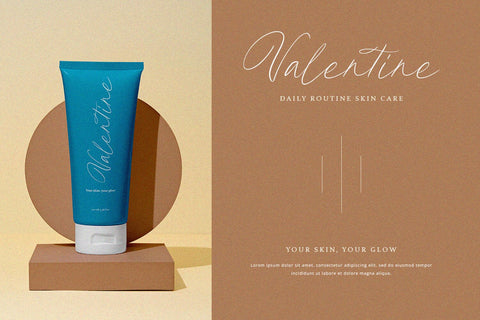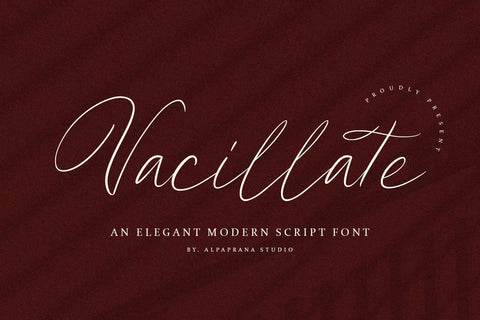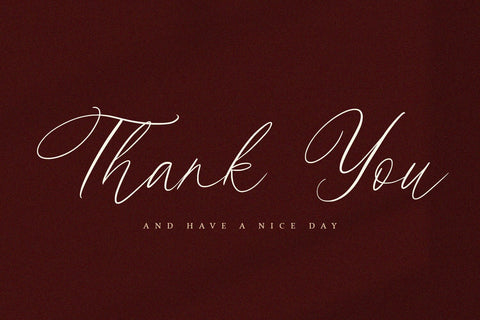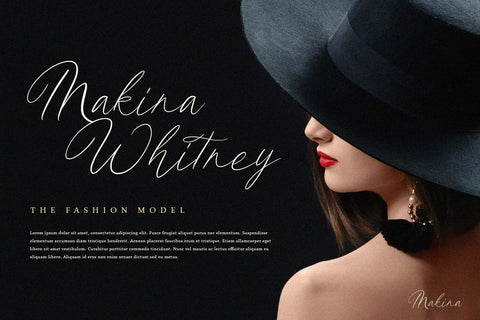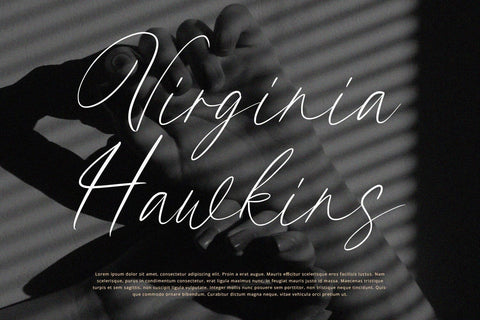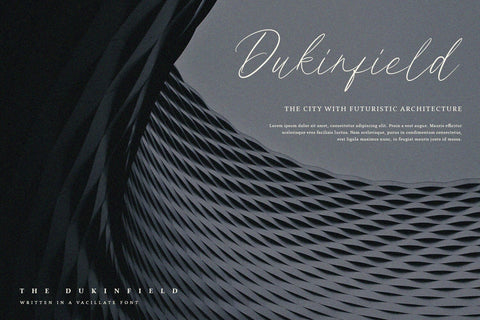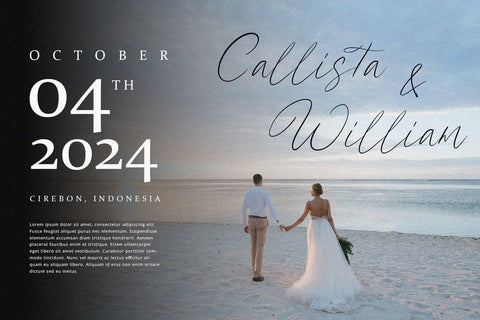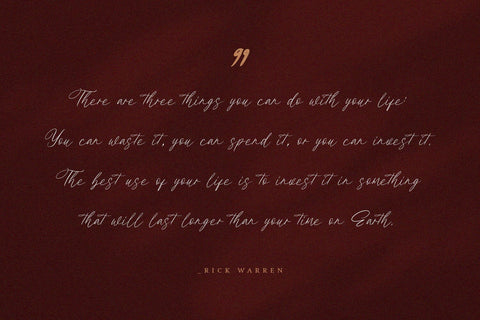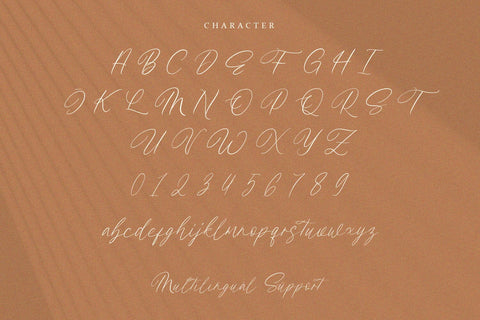
Vacillate - Script Font
Vacillate is a script font with unique and modern feels. It will be perfectly used for Branding, Logo Design, Lettering, Logotype, Clothing, Poster, magazine, packaging, posters, shopping bags, t-shirts, book covers, photography, special events and other design project.